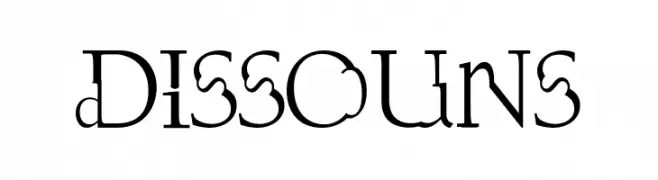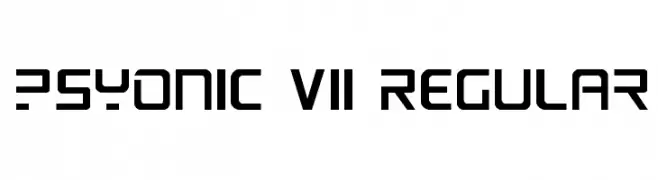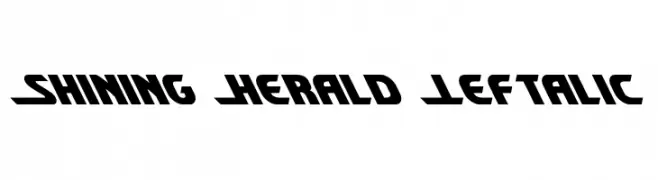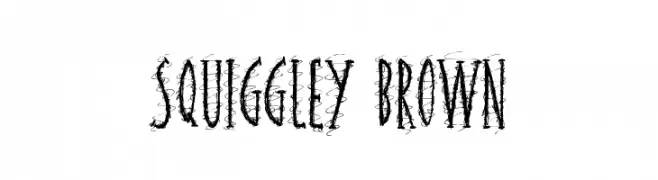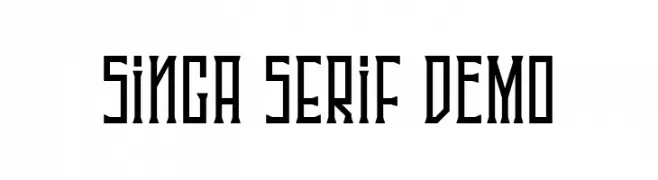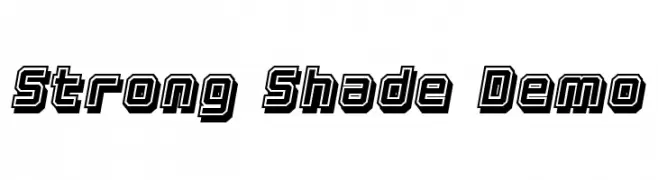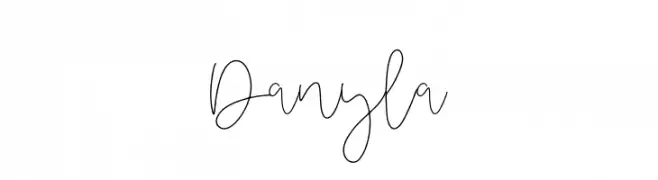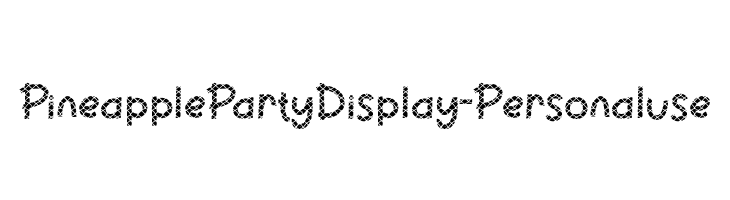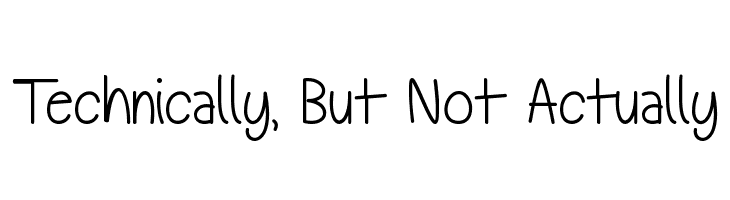
A futuristic, geometric font with angular shapes and distinct cutouts.
A bold, geometric font with a dynamic slant and strong presence.
A whimsical, hand-drawn font with a playful, squiggly style.
A playful, textured font with a hand-drawn, artistic style.
A playful, cursive script font with decorative loops and smooth flow.
A bold, angular serif font with a modern and geometric style.
A bold, playful font with a hand-drawn, whimsical style.
A bold, three-dimensional font with a strong shadow effect and geometric style.
A playful, handwritten font with flowing cursive forms and dynamic line thickness.